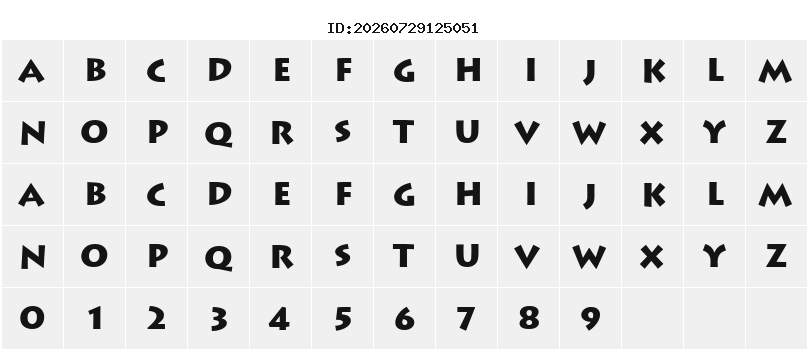
KryptaBold Preview
• Font Name: KryptaBold
• Full Font Name: KryptaBold
About KryptaBold.ttf
KryptaBold.ttf is a modern, elegant sans-serif font designed for ultimate readability and visual harmony. Perfect for branding, headlines, web design, and print materials.